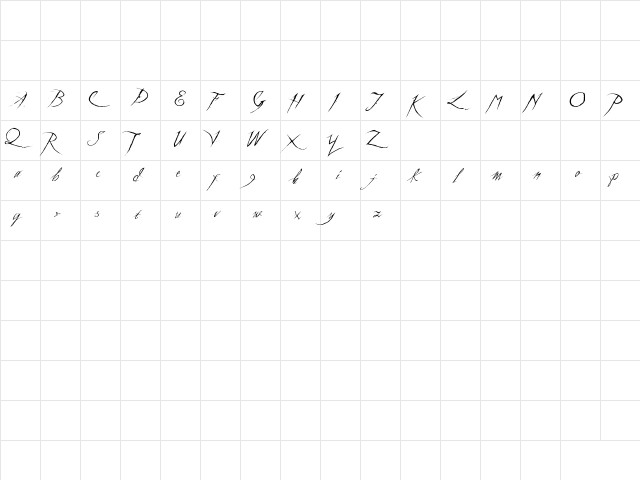
murder Normal Font Preview
murder Normal
murder Normal Font Details
Design Context for murder Typeface
murder is a composed and adaptable typeface that performs quietly and consistently across a wide range of design contexts.